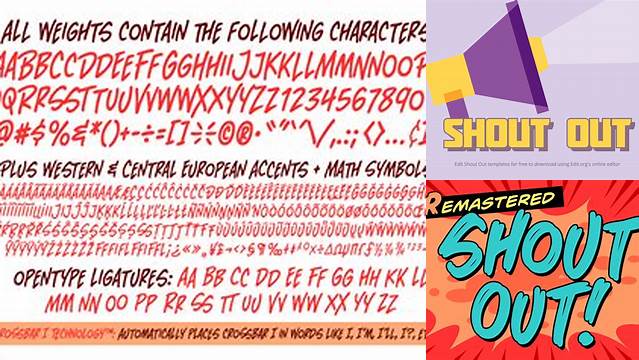
Hey guys! If you're on the hunt for a super stylish font to jazz up your designs, you've landed in the right place. We're diving deep into the world of the Shout Out font, and guess what? You can snag a free download! Whether you're a seasoned graphic designer or just starting out with some personal projects, finding the right font can make or break your creative vision. The Shout Out font is a real game-changer, offering a unique blend of boldness and readability that's perfect for various applications.
Why Shout Out Font is a Must-Have
So, why is the Shout Out font so popular, and why should you consider adding it to your font collection? Let's break it down. First off, this font has serious visual appeal. Its distinct design makes it stand out from the crowd, capturing attention and conveying your message effectively. It is designed with a touch of modernism that can attract anyone's eyes. You'll see it used everywhere, from eye-catching headlines to sleek logos and invitations. The versatility of the Shout Out font is one of its strongest suits. It's not just a one-trick pony; you can use it in various design projects. Think of it as your go-to font for posters, social media graphics, website headers, and even print materials like brochures and flyers. This font can take your project to the next level!
One of the key advantages of the Shout Out font is its ability to communicate. It strikes a great balance between being stylish and easy to read. This is crucial because, after all, your message needs to be understood! It is not enough for the font to look good; it must also be readable. This font makes sure you are in the right place! That makes it ideal for projects where clarity is important. The font features a range of weights and styles, offering flexibility for different design needs. If you're looking for something bold and attention-grabbing, use the heavy weight. If you need a more subtle touch, the lighter weights will do the trick.
Speaking of versatility, the Shout Out font comes in handy in different industries. Whether you're working on a project for a tech startup, a fashion brand, or an event, this font can adapt and enhance your design. It fits in different design niches. This adaptability makes it a valuable asset in any designer's toolkit. You can make amazing designs with the Shout Out font. Moreover, the availability of a free download is a major plus. Who doesn't love a great font without spending a penny? The free version is often available for personal use, giving you a chance to try it out and see how it fits your projects. If you're really into the Shout Out font, there are also professional versions available that come with enhanced features and licensing options for commercial use. Overall, the Shout Out font is a fantastic choice for anyone looking for a stylish, readable, and versatile font. Its unique design, adaptability, and availability make it a top pick for designers of all levels. Get ready to make your designs pop with the Shout Out font!